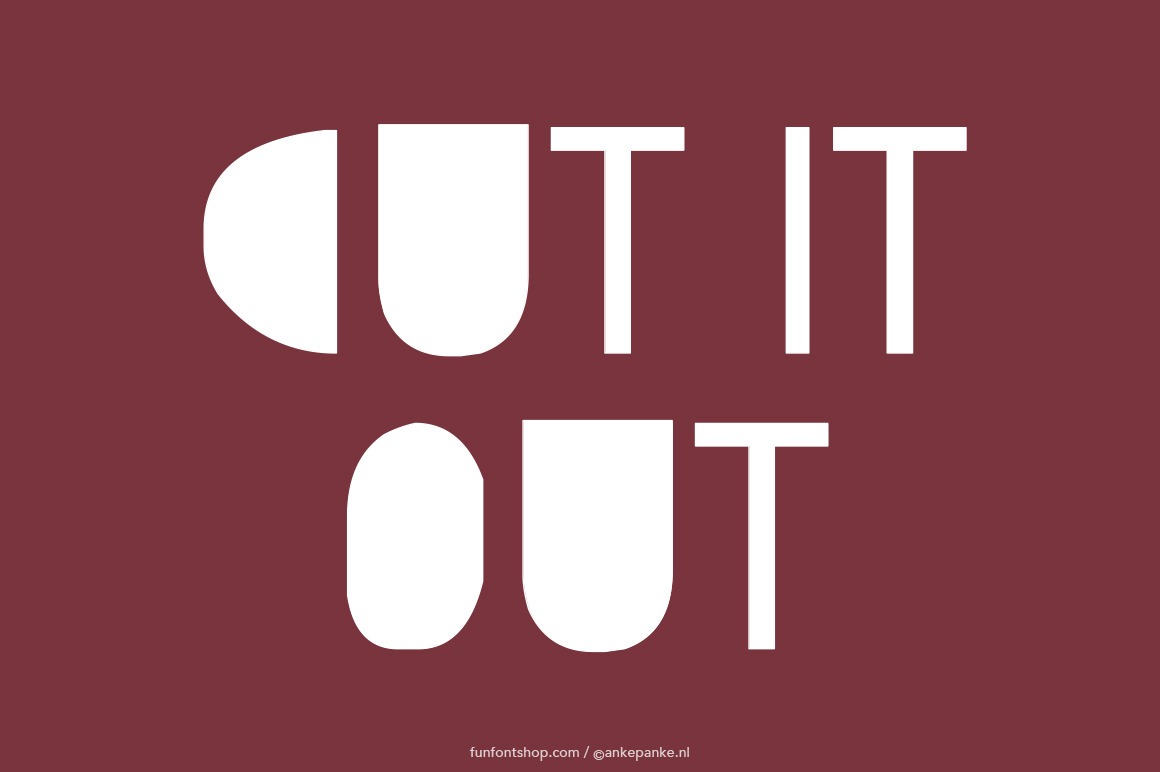
Cut it Out handmade Font
Where possible, the letters of this fun font are filled, without losing readability. This font was first draw by hand, scanned, vectorized and converted to a TTF file so you type with it. They have some imperfections, but I believe that adds to the handmade feeling.
- Letters Uppercase, lowercase and numbers
- Also Letters with accents (ü,î,ç,é,å,ò,œ, etc)
- Punctuation !?#%&*±+=-_,.:;'"/|¢£€$ß©®@({[]})
- Extra hearts, diamond, flowers and triangles